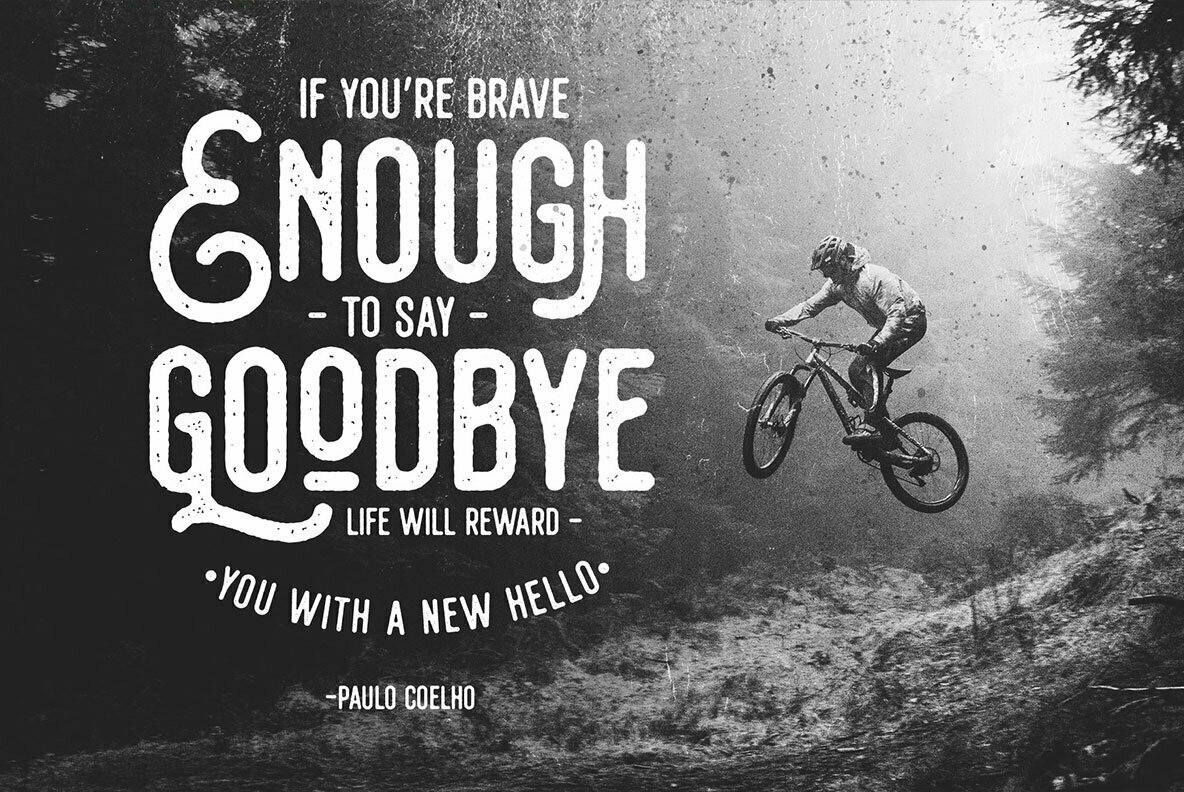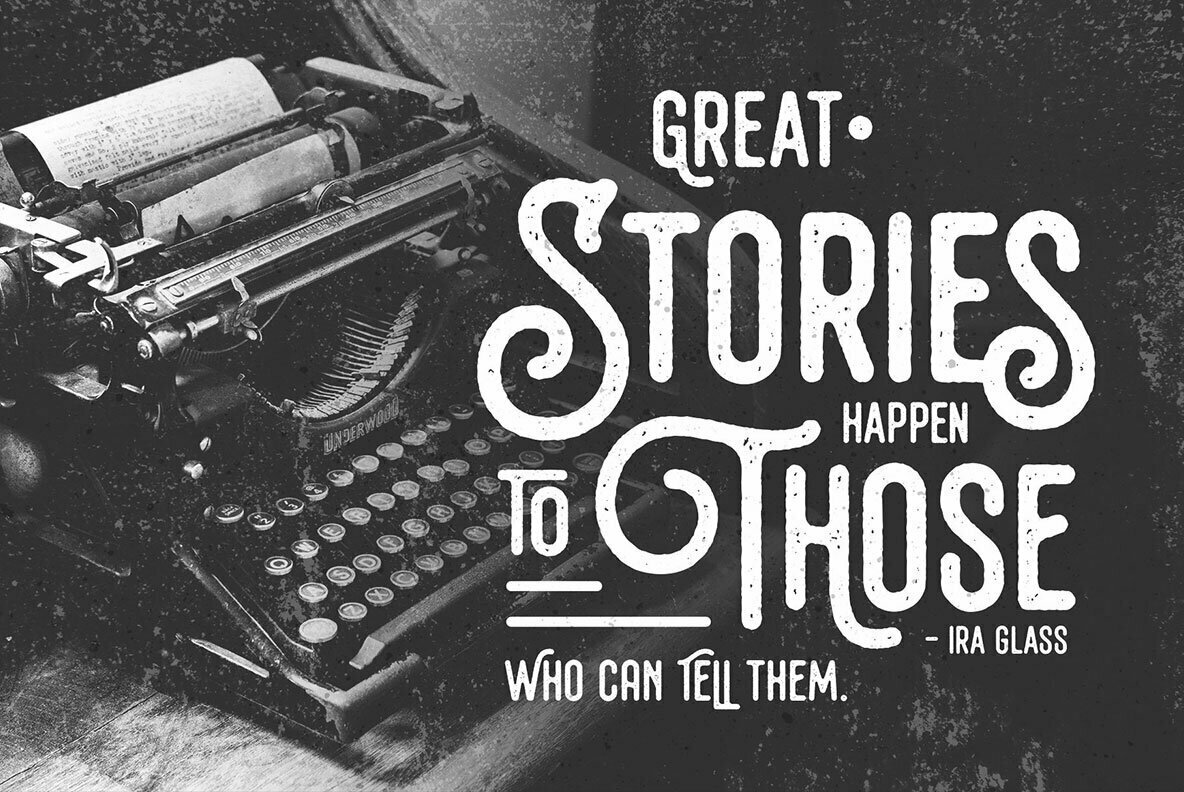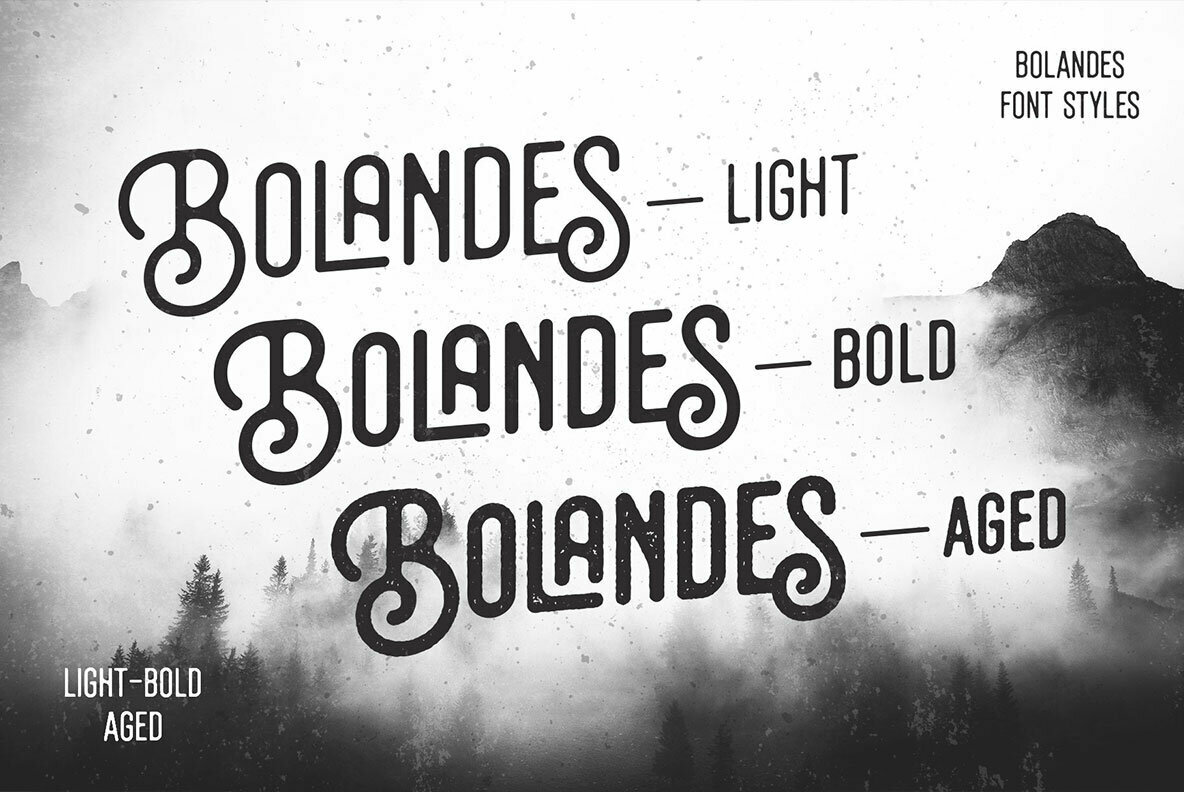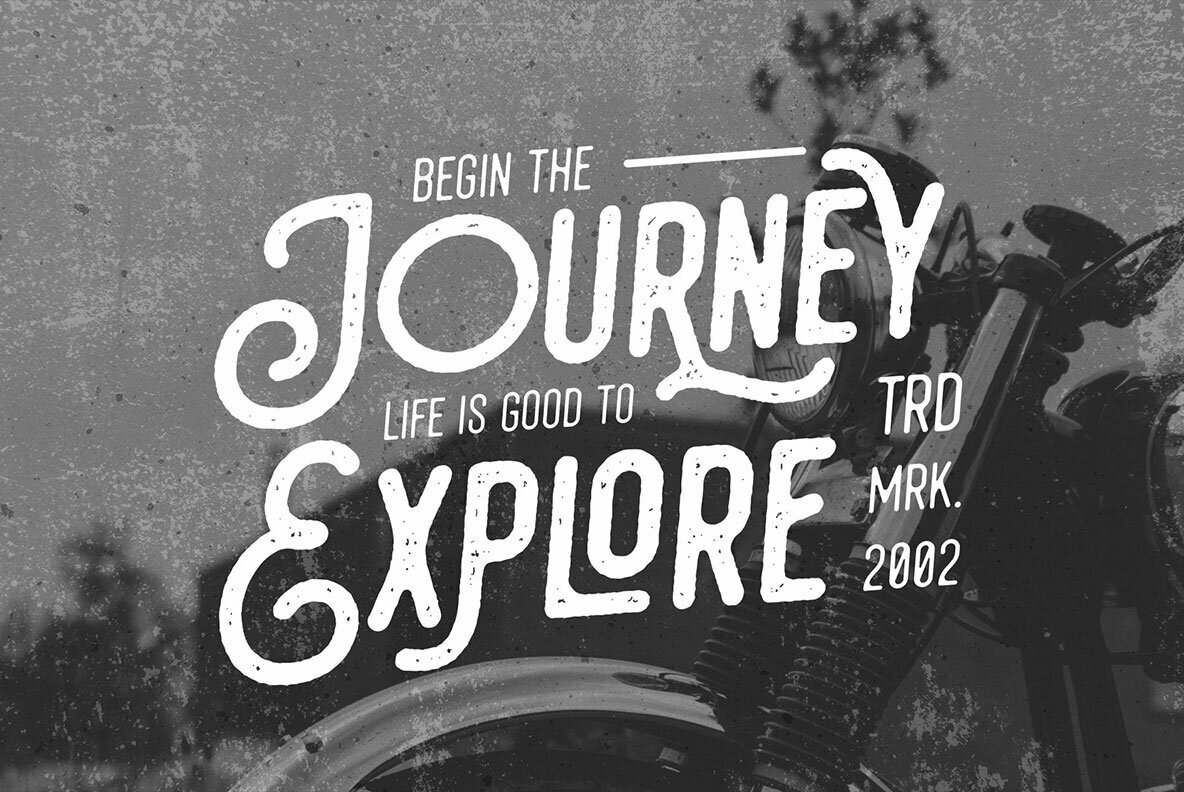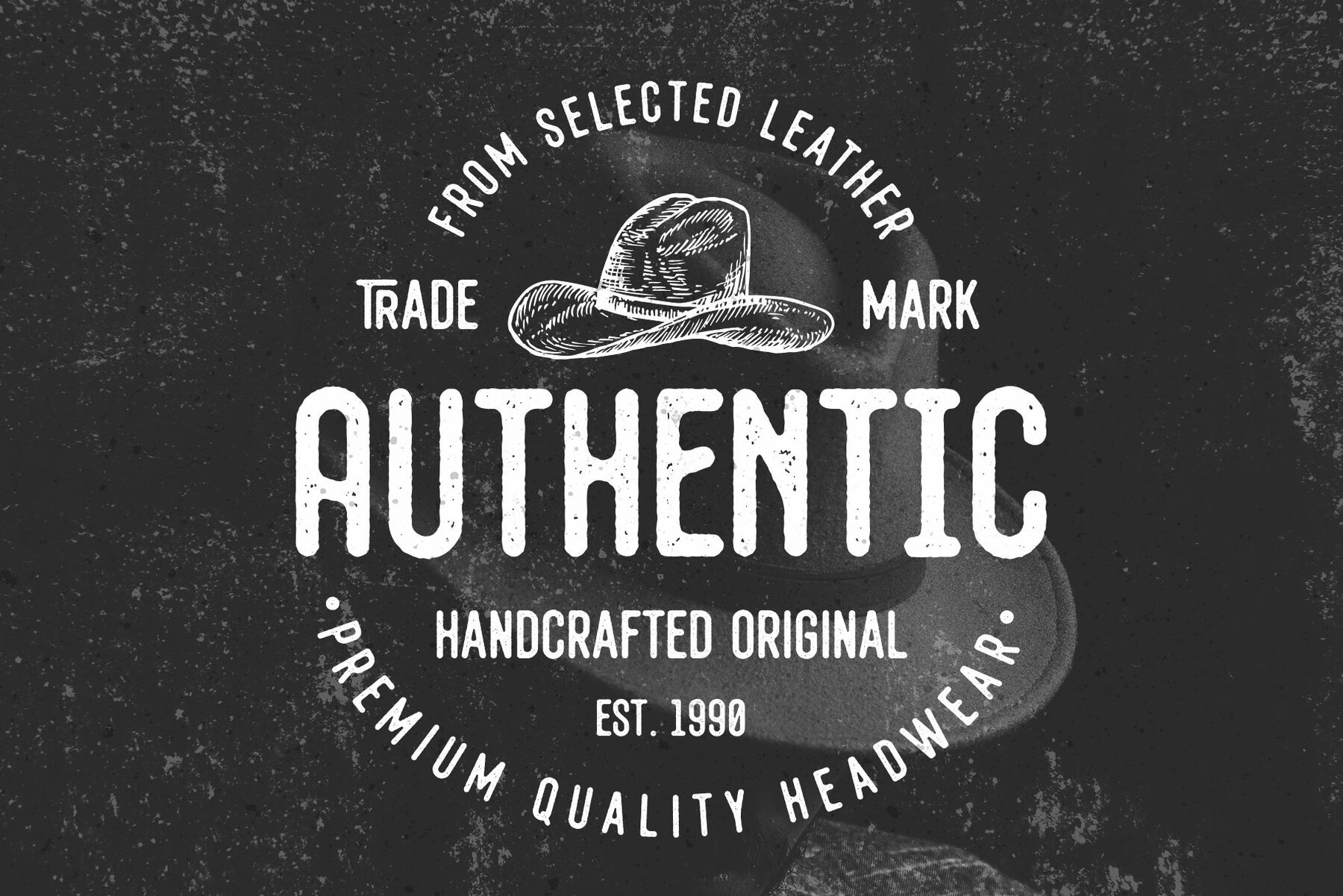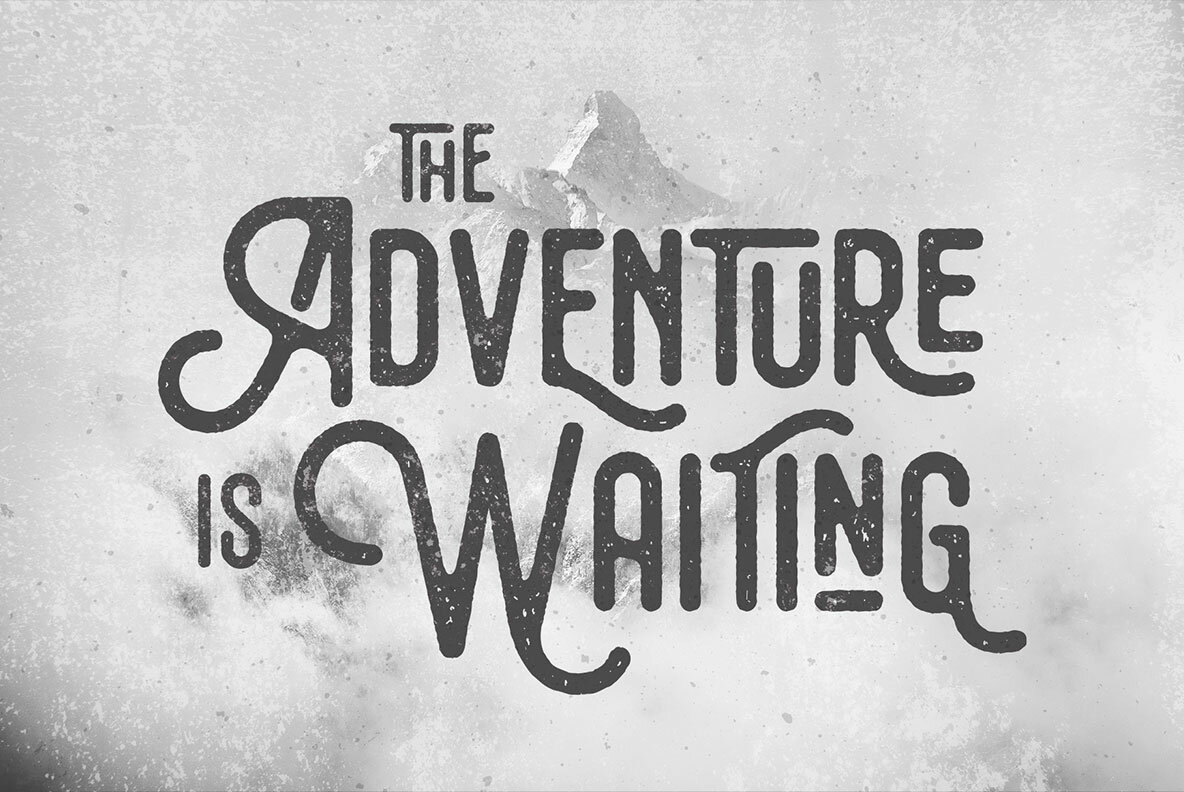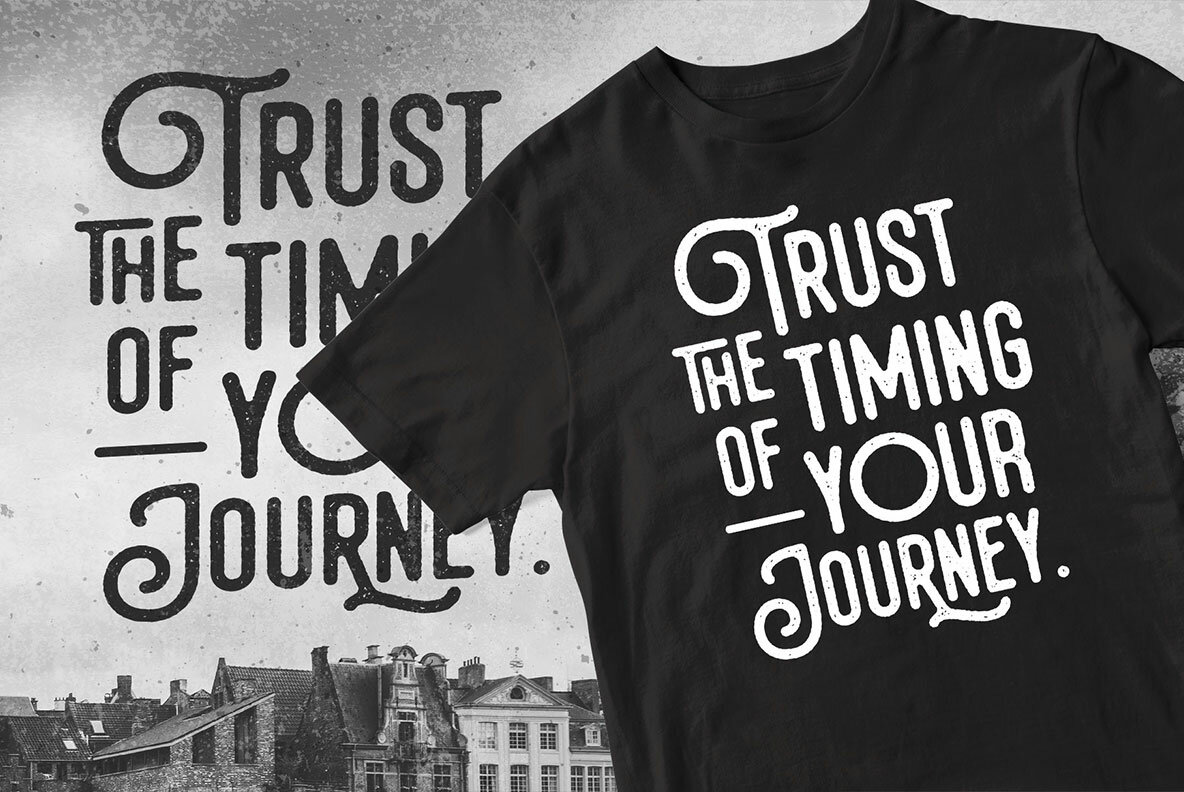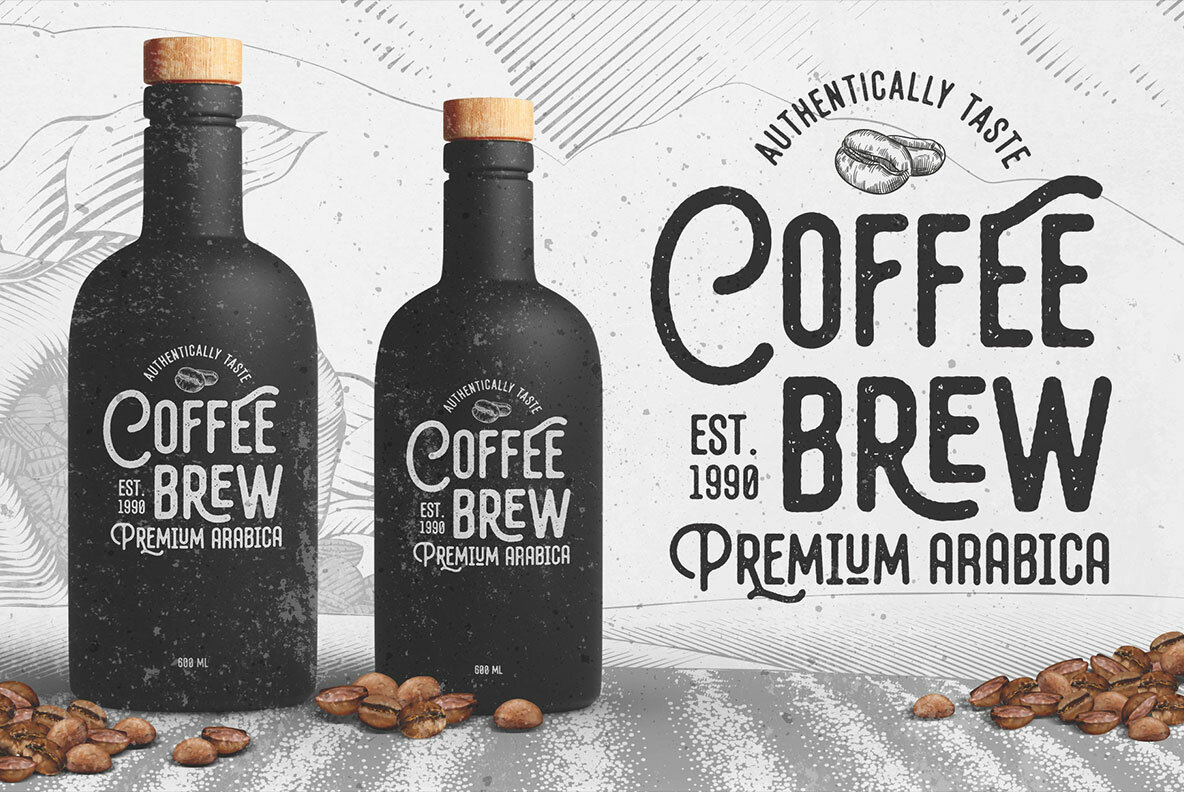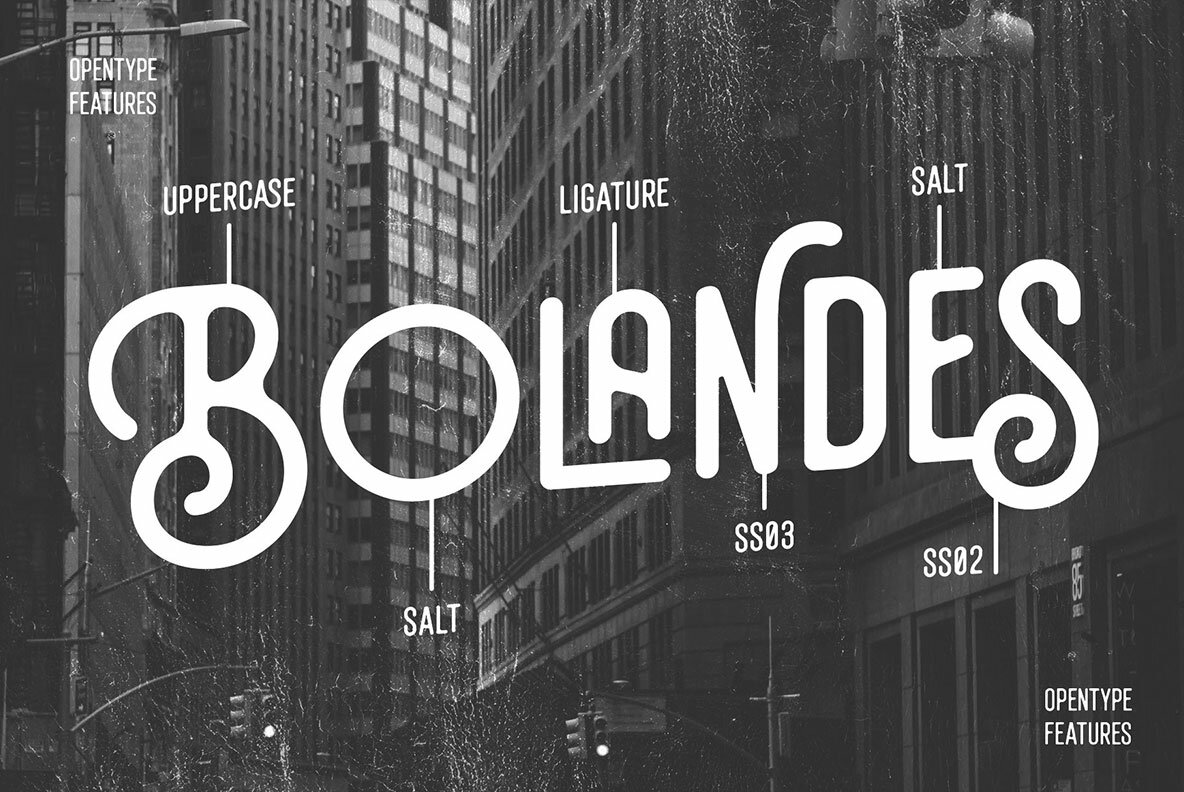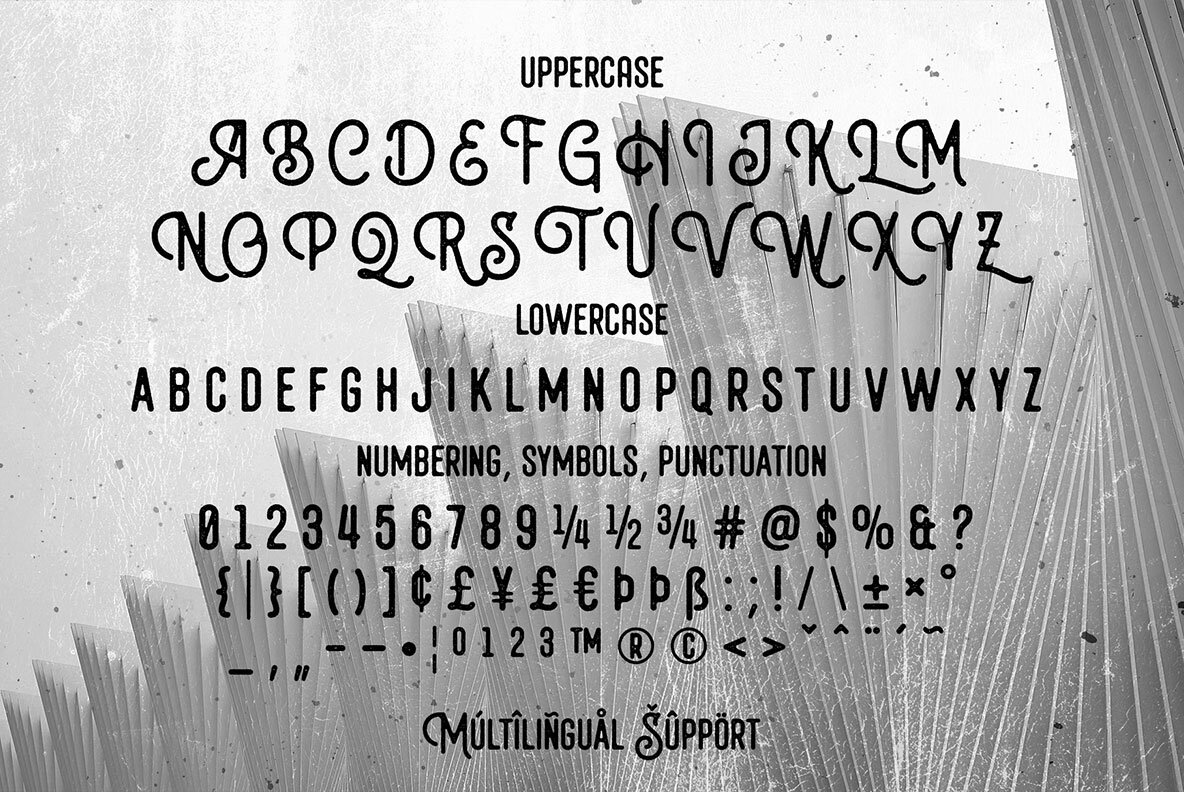
Bolandes Font
Rooted in the charm of vintage signage, Bolandes by Ahmad Ramzi Fahruddin merges the warmth of letterpress aesthetics with the fluidity of modern calligraphy. This handcrafted monoline font is a perfect choice for creative projects ranging from logos and apparel to posters and packaging. Emphasizing its versatility, Bolandes is especially striking in display contexts where its all-caps recommendation truly shines.Bolandes: Vintage Monoline Font with Versatile Styles